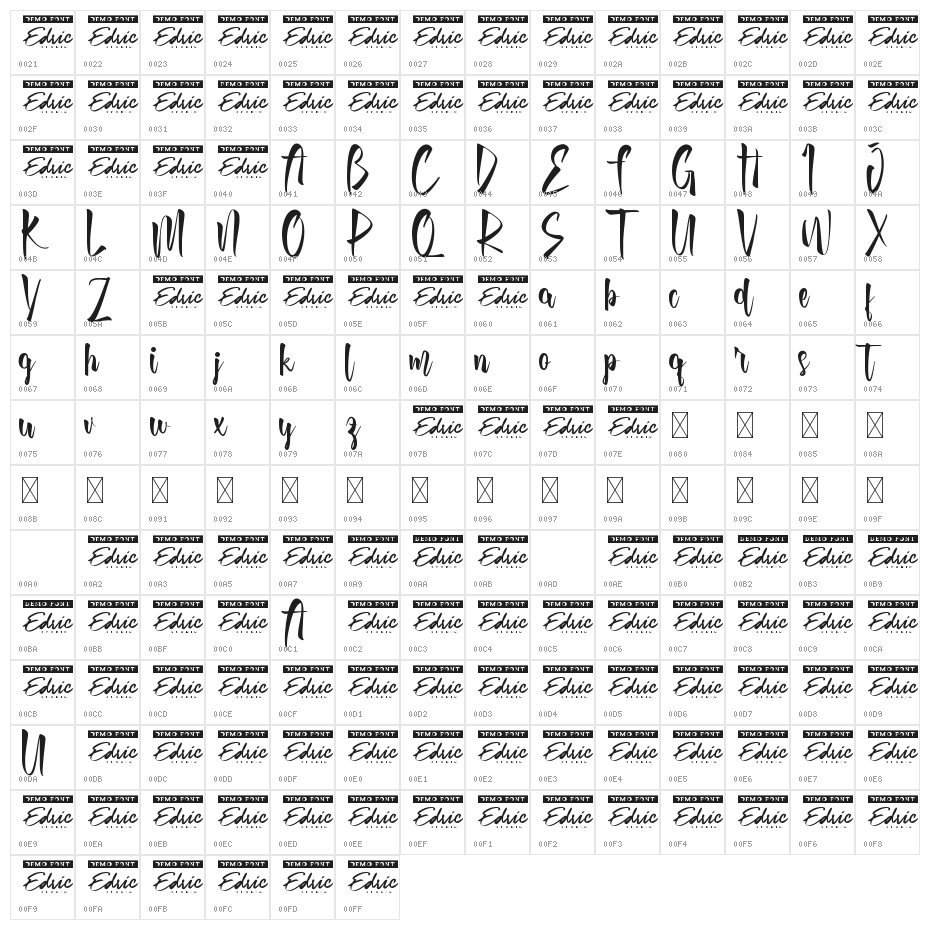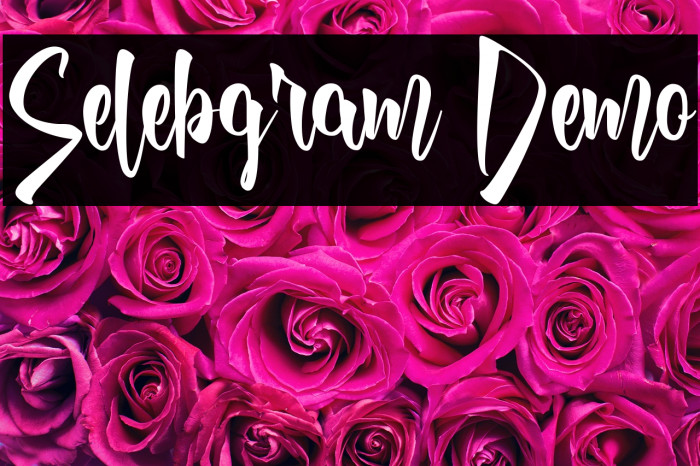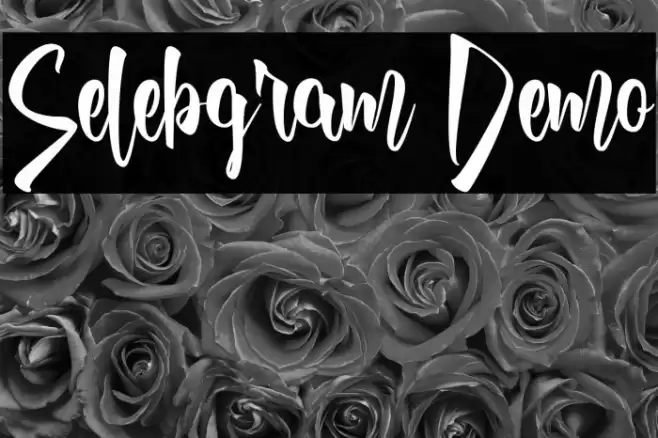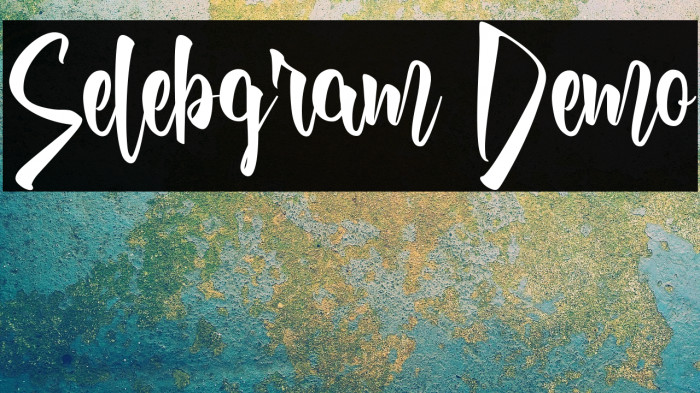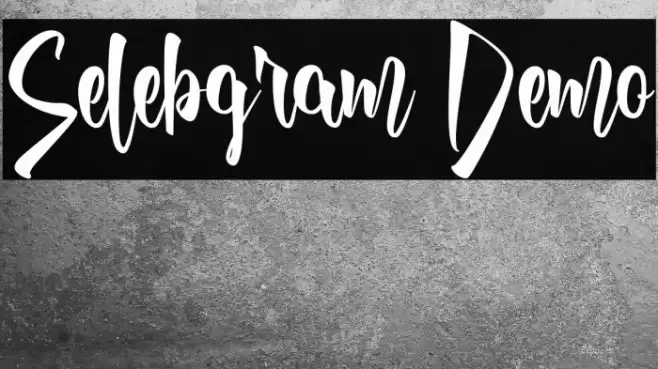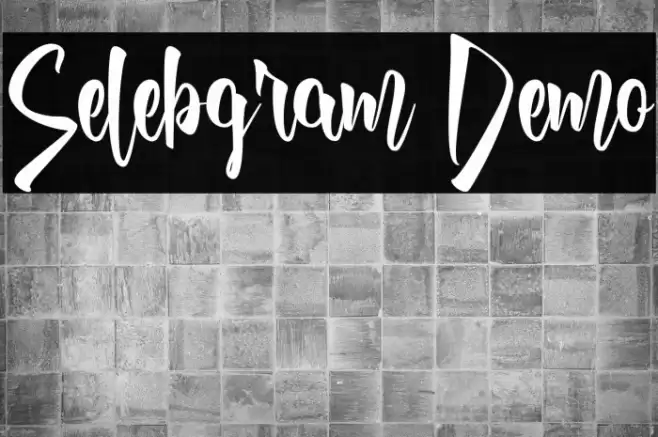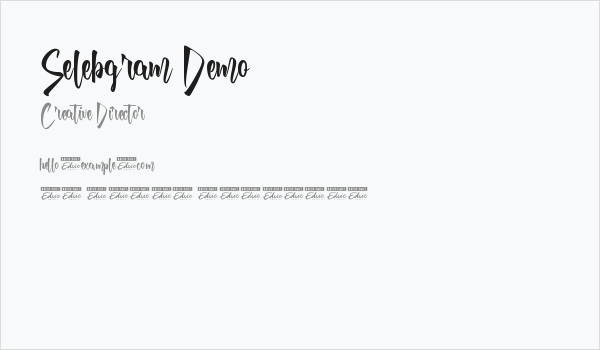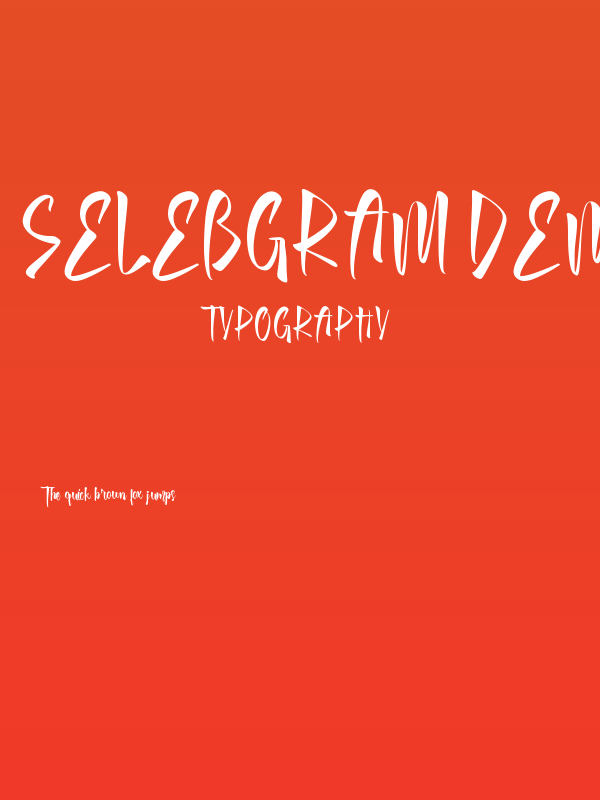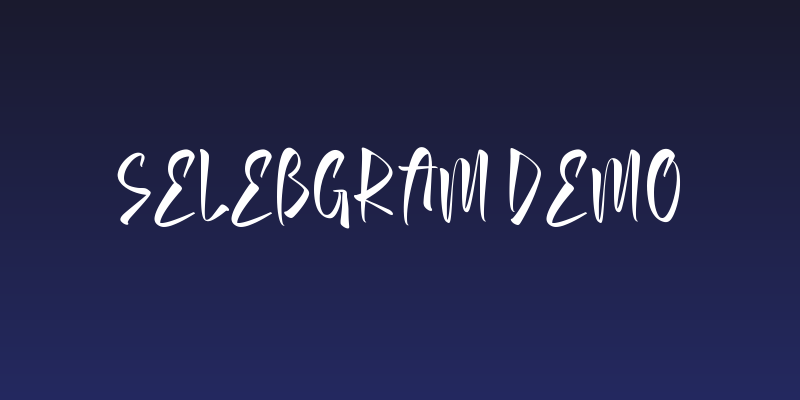
Selebgram Demo Font
Selebgram Demo Description
This font features a bold and expressive handwritten style, characterized by its dynamic and fluid strokes. The letters exhibit a playful and artistic flair, with varying thickness that adds a sense of movement and energy. The uppercase letters are tall and slightly narrow, while the lowercase letters maintain a consistent flow with rounded edges and smooth curves. The font's unique personality is further enhanced by its irregular baseline, giving it a casual and informal appearance. This style is perfect for adding a personal touch to any design, making it ideal for creative projects that require a distinctive and lively aesthetic.